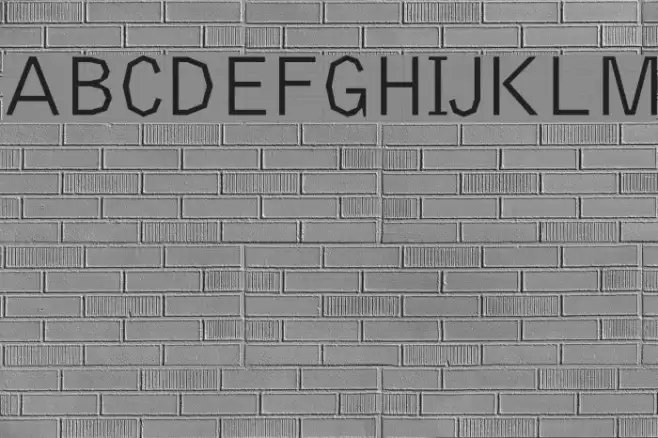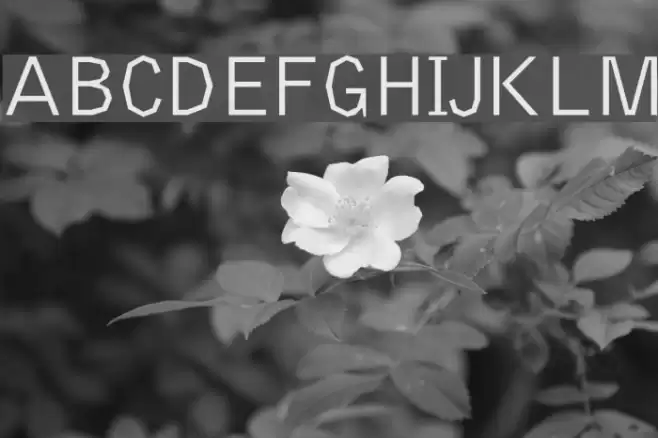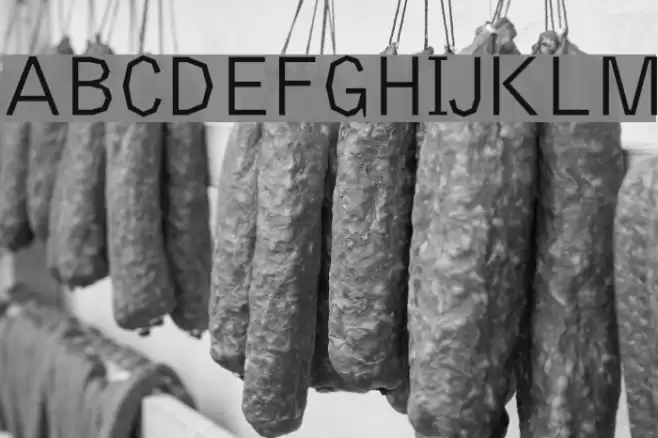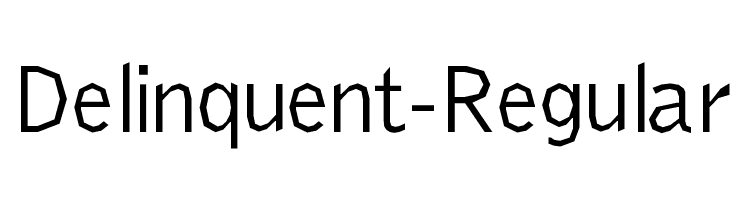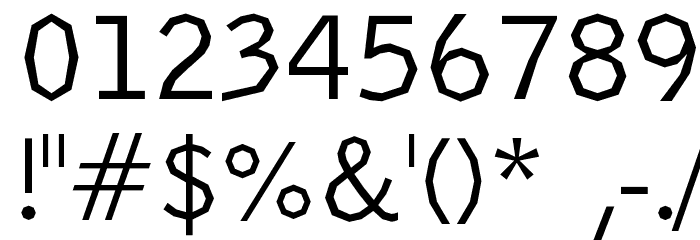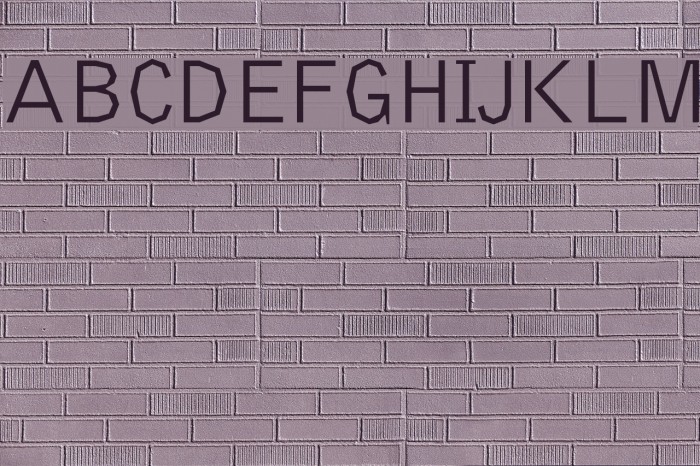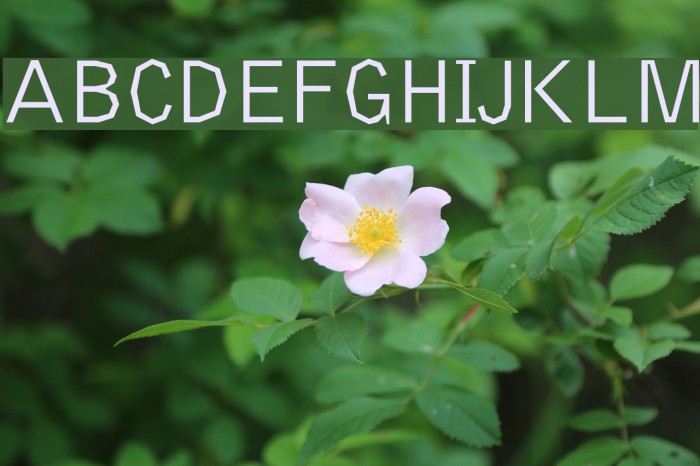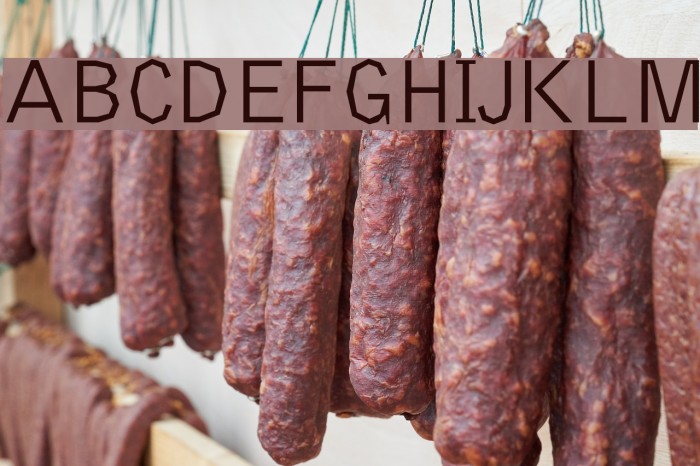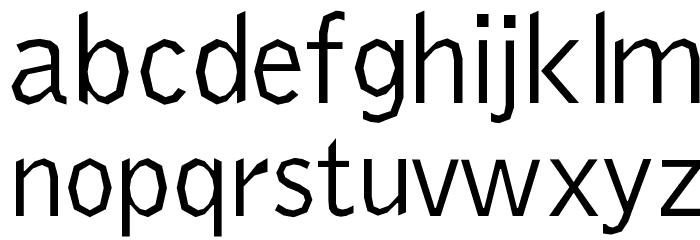
Delinquent-Regular Font
Delinquent-Regular Description
This font features a distinctive, edgy style with angular and geometric letterforms. The uppercase letters are bold and commanding, while the lowercase characters maintain a consistent, slightly condensed appearance. Numbers are uniquely styled with sharp edges, adding to the font's overall modern and rebellious vibe. Special characters are crafted to match the font's angular aesthetic, making it suitable for attention-grabbing designs. The font's uniform stroke width and clean lines contribute to its contemporary feel, making it ideal for projects that require a bold statement.
A modern, edgy font with angular, geometric letterforms and a rebellious vibe from Sans Serif fonts.
- Proposed Projects: Ideal for branding, posters, album covers, and any project needing a bold, modern look.